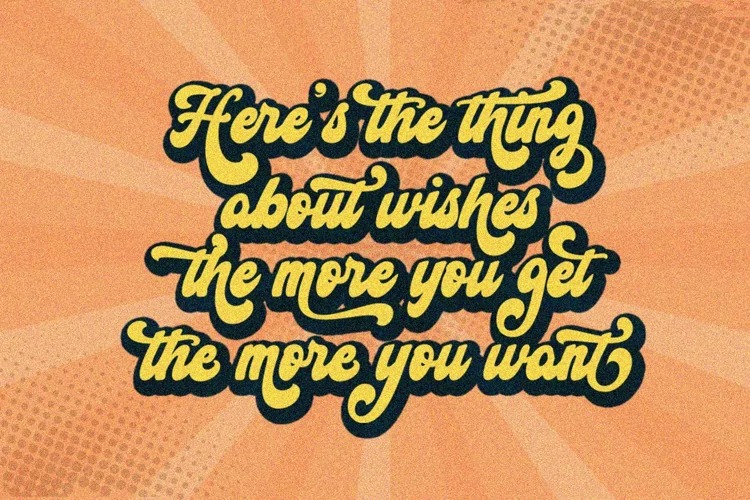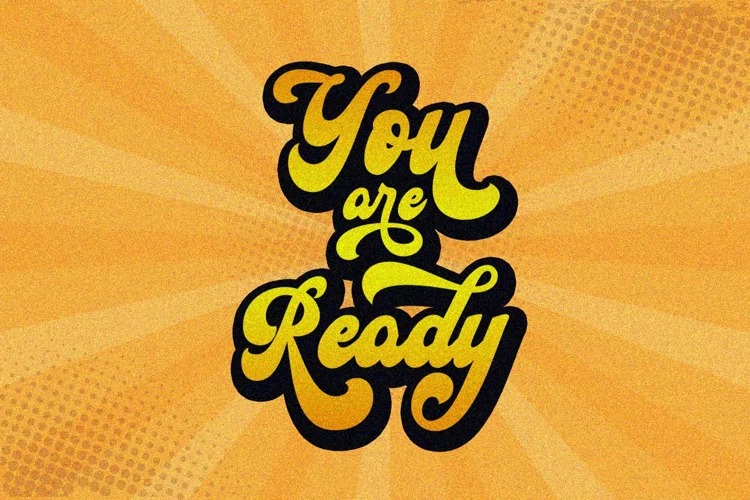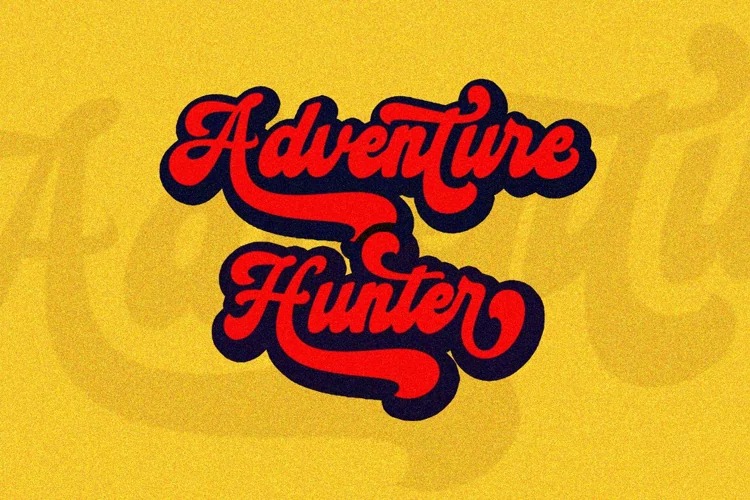
The Artmars Font
The Artmars Script Font
This is an elegant calligraphy typeface that comes with a very beautiful character change. The Artmars Script have many alternative swash & ligatures character and have opentype features like a stylistic alternatice, stylistic set, ligature and swash so you can mix and match like a you want. The Artmars Script came with open type features such stylistic alternates, stylistic sets & ligatures good for logotype, poster, badge, book cover, tshirt design,handwritten quotes, product packaging, header, poster, merchandise, social media & greeting cards.